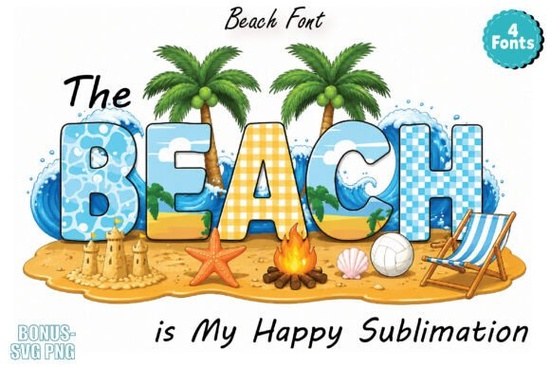
If you're looking for a friendly, summery typeface that feels like bare feet in warm sand and salt-kissed hair, The Beach Font is a relaxed, colorful option that works especially well for casual, vacation-themed projects. It’s not a formal serif or a rigid sans instead, it’s a hand-drawn, cheerful alphabet pack designed to bring lightness and personality to your designs without overcomplicating things.
What kind of designs does The Beach Font work best with?
This font shines where warmth and approachability matter most: beach signage, summer sale banners, travel journal covers, and playful merch like tote bags or kids’ swimwear tags. Because each letter comes in vibrant, ready-to-use colors (think coral, seafoam, sunshine yellow), it saves time on manual coloring especially helpful if you’re batch-creating sublimation files or planner stickers.
It’s also a solid pick for social media posts promoting local beach cafes, surf schools, or boutique resorts. You’ll find it fits naturally alongside tropical icons palm leaves, flip-flops, ice cream cones without competing for attention. And since the letters have gentle curves and open spacing, they stay legible even at smaller sizes, like on sticker sheets or printable gift tags.
How does it actually look in real design software?
You might notice the preview on Creative Fabrica shows The Beach Font in black and white but that’s just a system limitation. In practice, when you install and use it in Adobe Illustrator, Photoshop, Canva, or Figma, all the colors appear as intended. No extra steps needed: just type, and the rainbow appears.
That said, it’s not a variable font or an OpenType feature-heavy family. It’s a single-weight, fully colored display font so it’s best used for headlines, short phrases, or decorative elements rather than long paragraphs. For body text in the same project, pairing it with a clean, neutral sans-serif (like Montserrat or Poppins) keeps things balanced and readable.
Who’s using this font right now and why?
We’ve seen small-batch crafters use it for handmade soap labels themed “Ocean Breeze” or “Sunset Salt Scrub.” Print-on-demand sellers add it to vintage-style postcards and throw pillow mockups targeting coastal Airbnb hosts. Teachers and homeschool parents print it on reading flashcards for summer literacy packets kids respond well to the friendly shapes and bright tones.
Where can you use it beyond digital files?
- T-shirts & apparel: Works great on light-colored cotton or tri-blend tees especially with minimal backing graphics.
- Sublimation mugs & tumblers: Colors translate smoothly, and the rounded edges help avoid harsh halos during transfer.
- Stickers & planner inserts: Clean outlines mean crisp cut lines for Cricut and Silhouette machines.
- Social media carousels: Adds visual rhythm to Instagram or Pinterest pins about summer routines or travel tips.
- Printable wall art: Pair with simple line-drawn seashells or sunbursts for instant coastal charm.